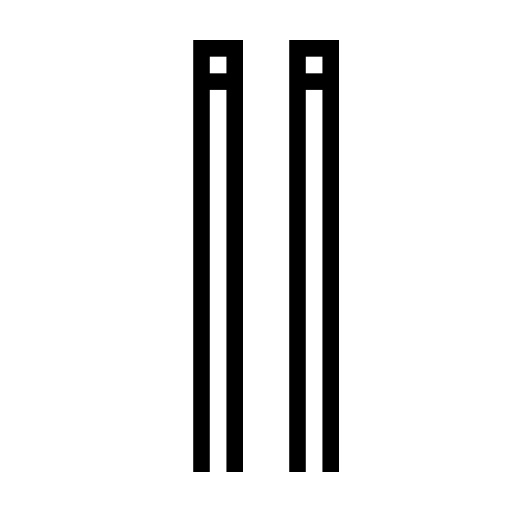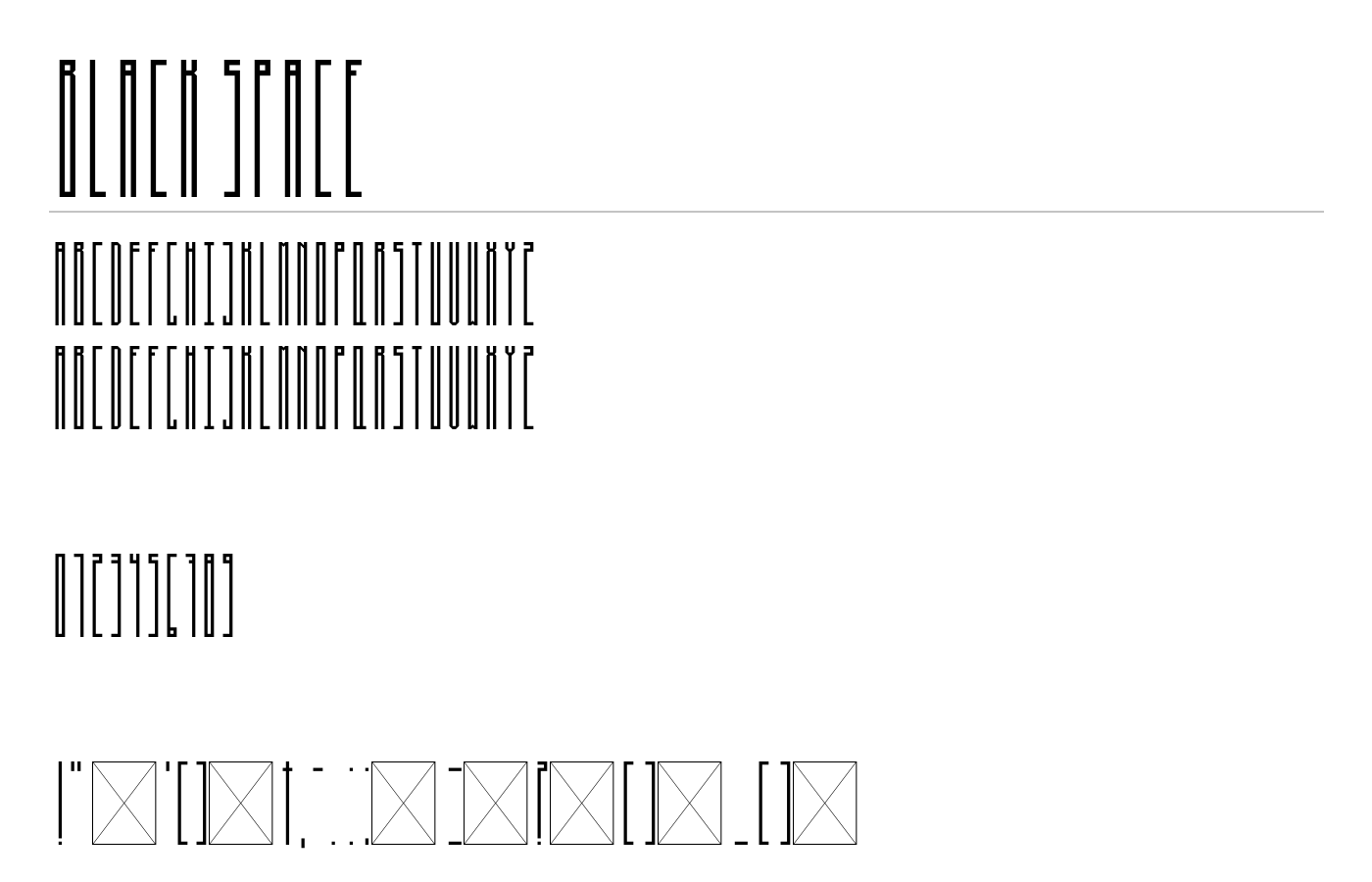
Black Space Font is a tall, narrow sans serif typeface with a modern, geometric feel marked by its ultra-condensed letterforms and uniform stroke weight. Its striking vertical emphasis and minimalistic design make it ideal for bold headlines, posters, and branding that aim to convey a sleek, futuristic, or avant-garde aesthetic. This font works best in display settings where its distinctive, tightly spaced character shapes can capture attention and create a strong visual impact.
Black Space Font
About Black Space Font
| Font family | Black Space Font |
| Designer | hunthusser |